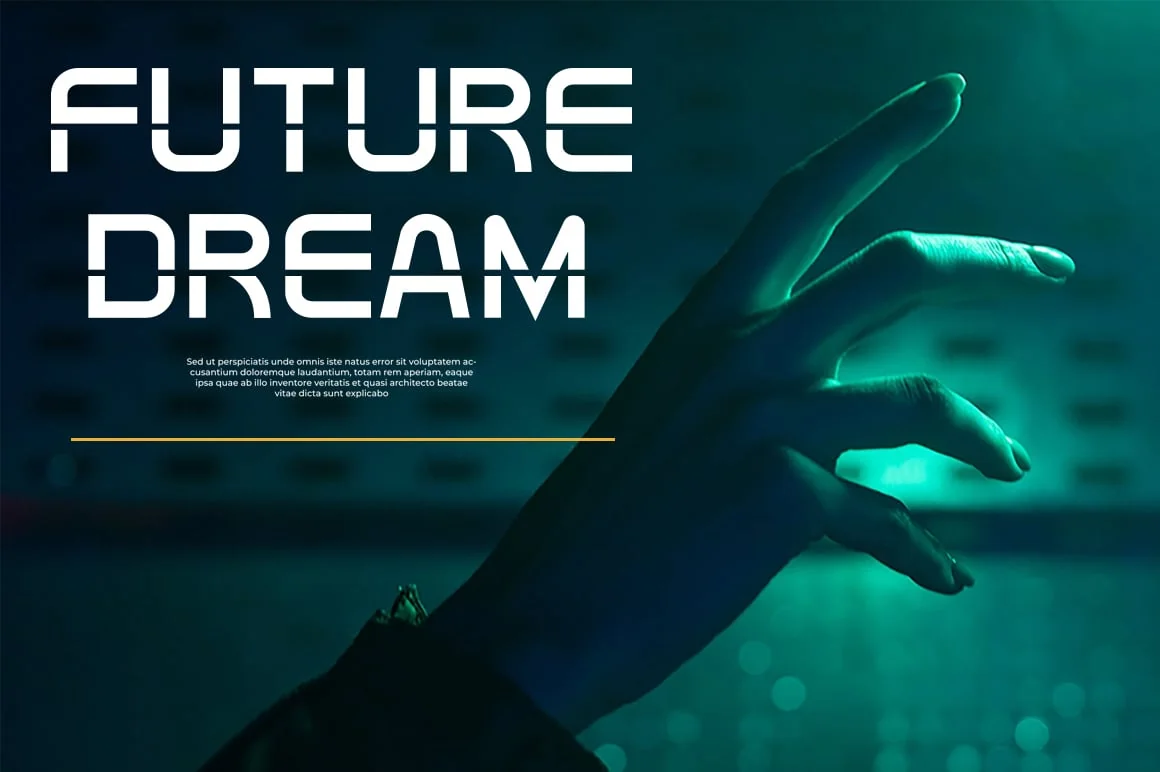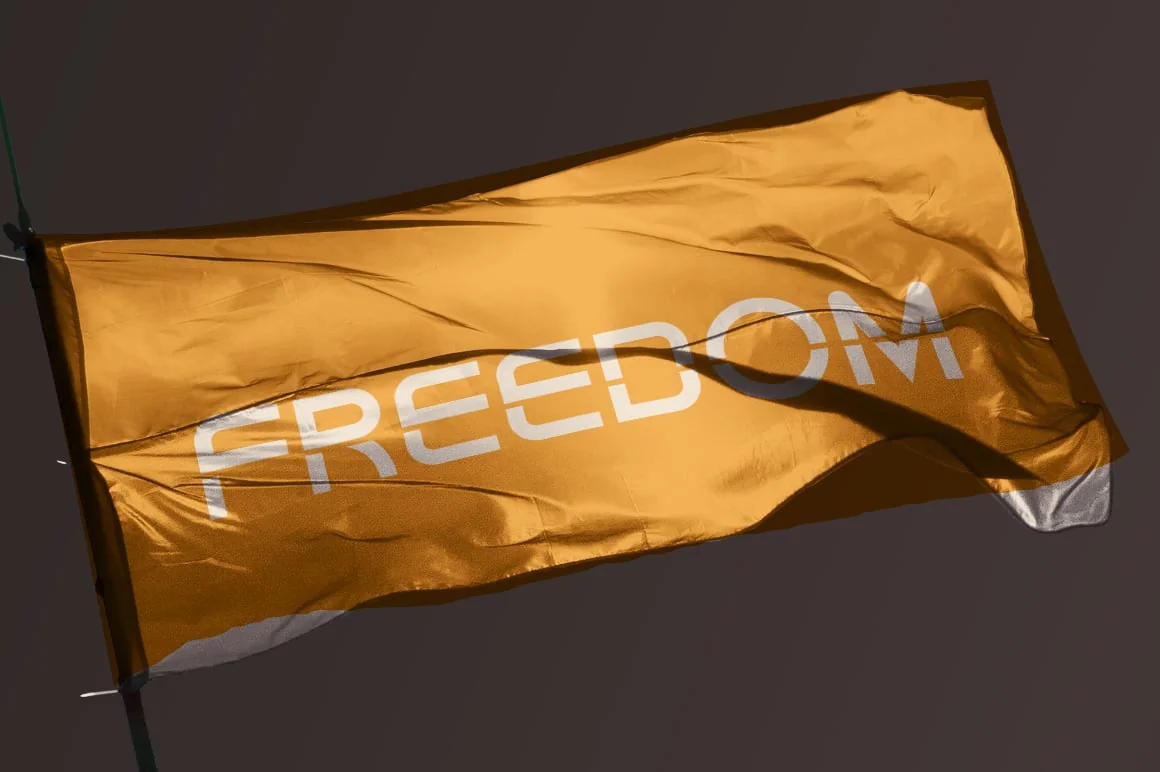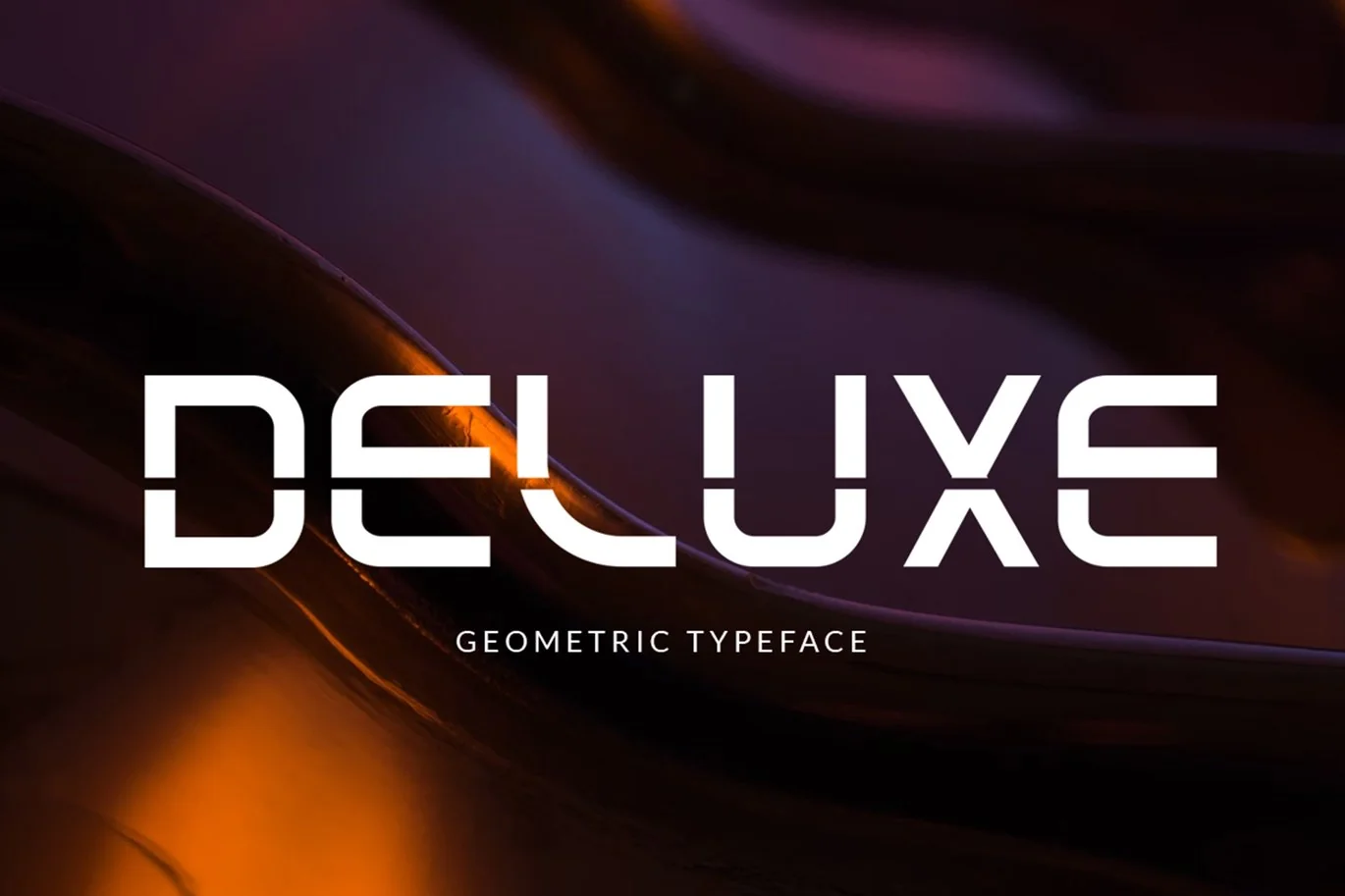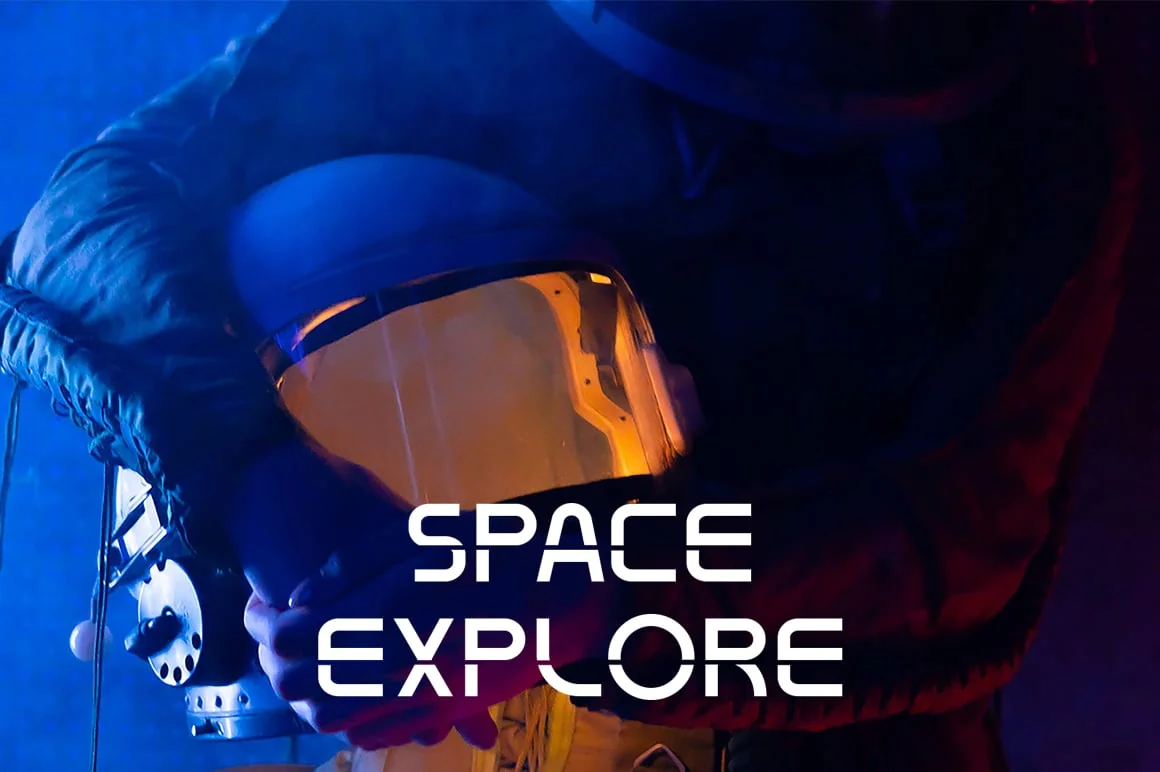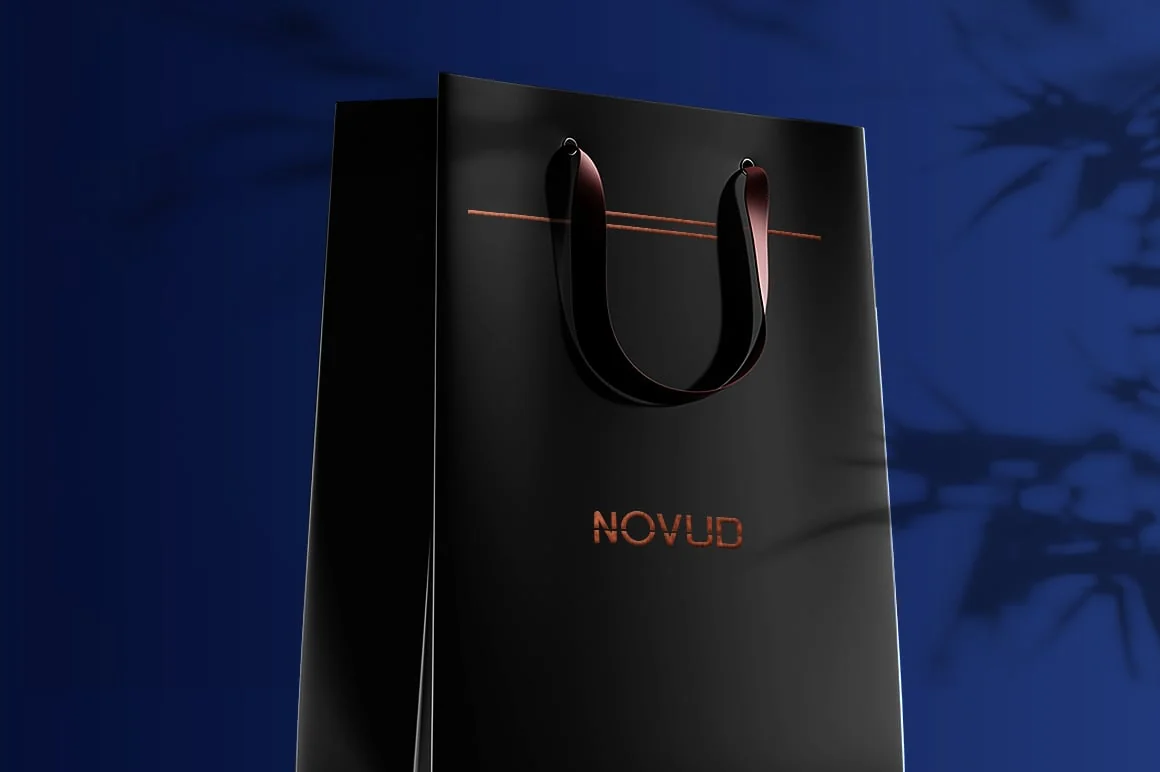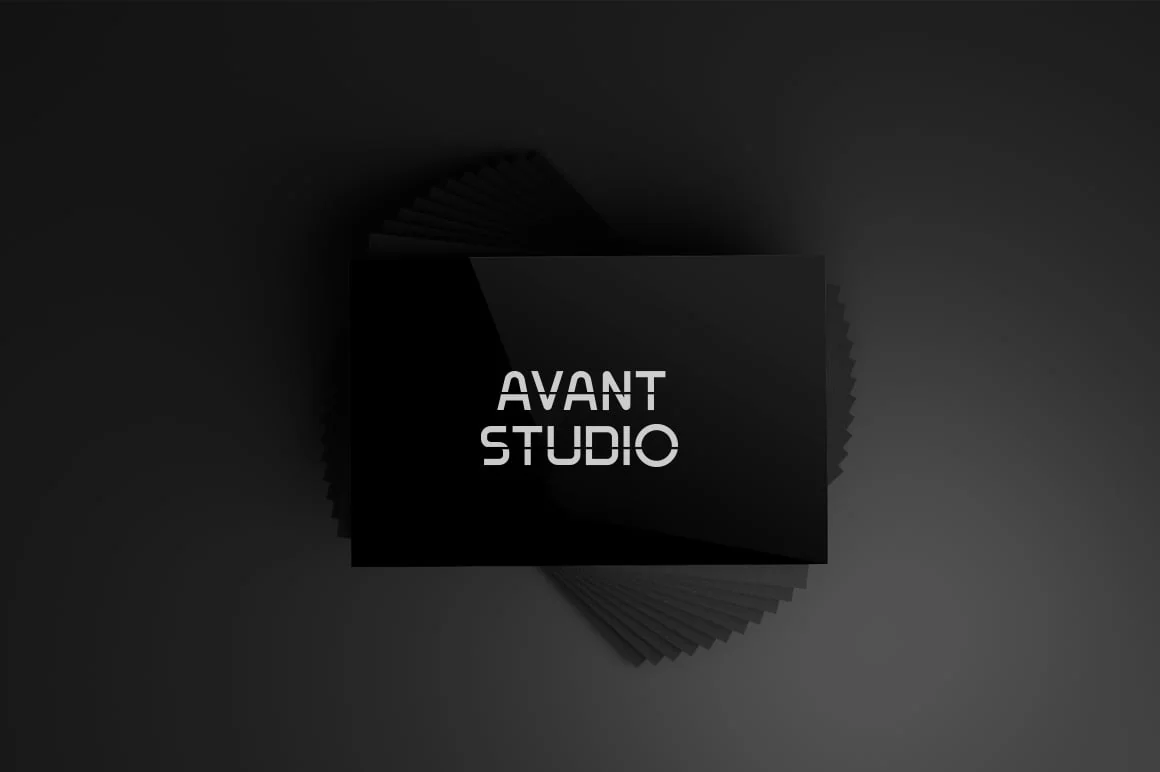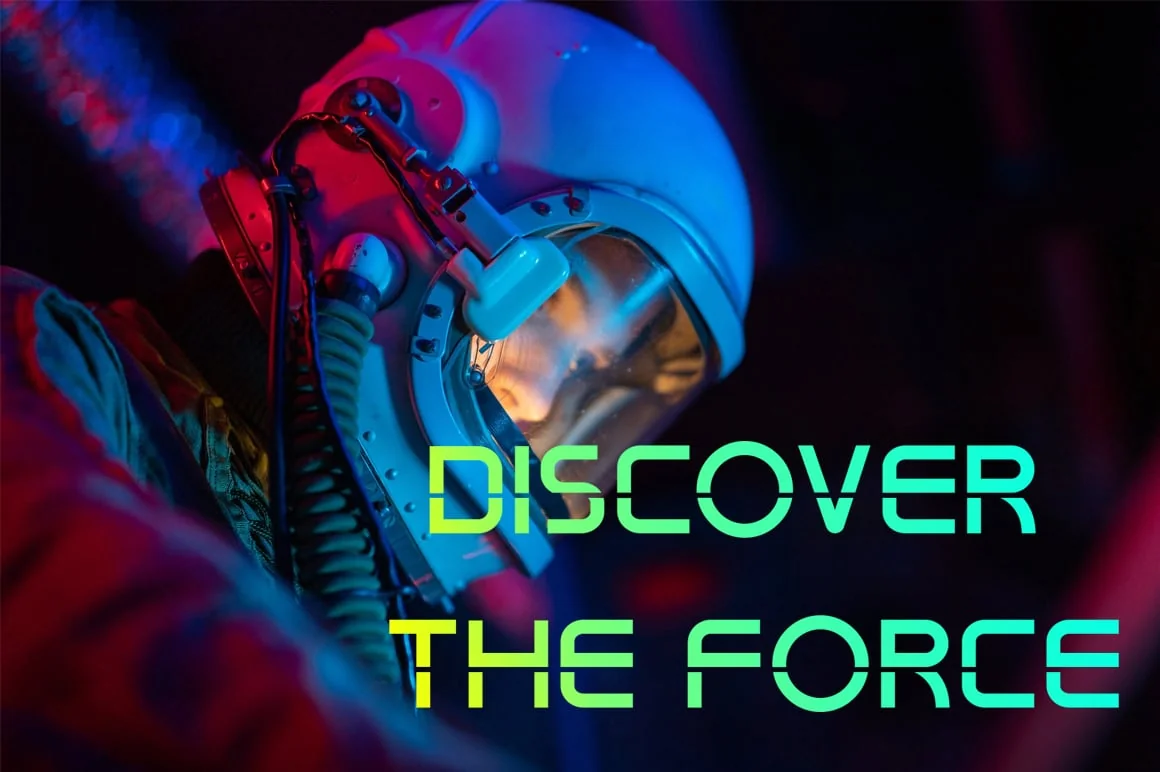
Deluxe – Modern Font
Deluxe is a sans based font with unique lowercase that will make your design looks futuristic and modern. You can use this font for any purpose, especially to make logotype.